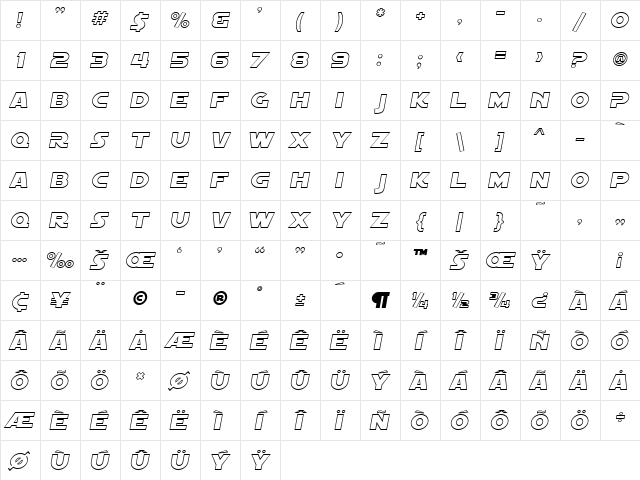
SF Distant Galaxy Outline is built around its visual character rather than neutral utility - its distinctive forms are designed to make an impression at display sizes. The slanted form adds forward momentum and visual energy.
Font Pairing: Pair with a clean neutral sans-serif for body copy to let SF Distant Galaxy Outline's character lead without overwhelming the composition.
Pro Tip: Use SF Distant Galaxy Outline exclusively at display sizes - it was designed to be seen, not read at length. Let a neutral companion handle body copy.